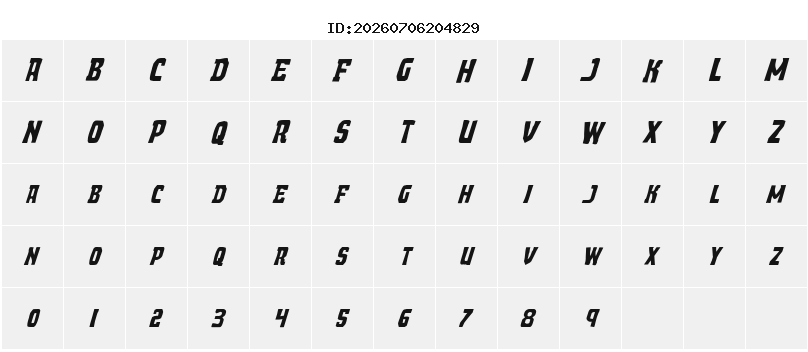
Demon Priest Expanded Italic Preview
• Font Name: Demon Priest Expanded Italic
• Font Style: Expanded Italic
• Full Font Name: Demon Priest Expanded Italic
About Demon Priest Expanded Italic.ttf
Demon Priest Expanded Italic.ttf is a modern, elegant sans-serif font designed for ultimate readability and visual harmony. Perfect for branding, headlines, web design, and print materials.